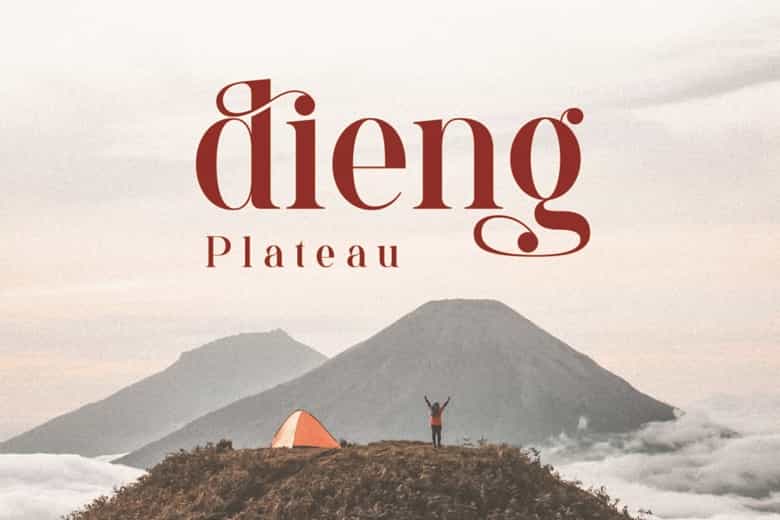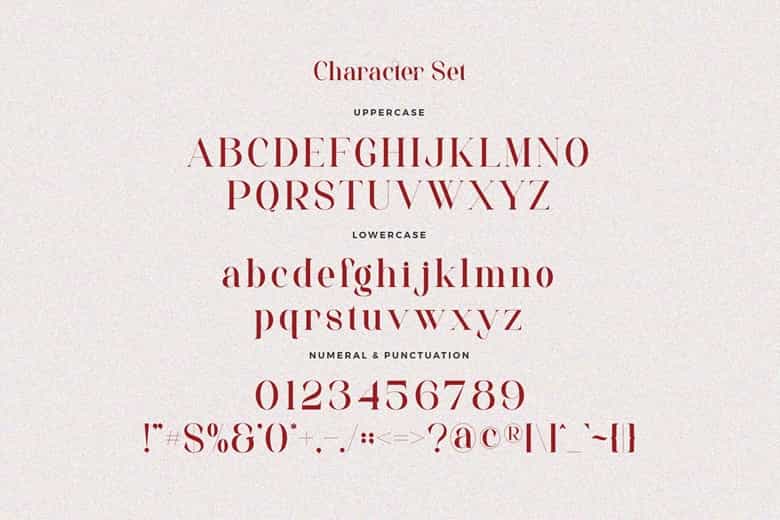
Caliger is a luxurious ligature serif font based on the iconic word mark, it is ideal for creating templates, flyers, videos, advertisements, logos and other identity materials.